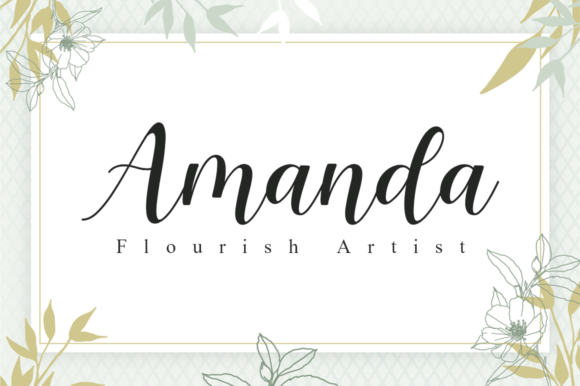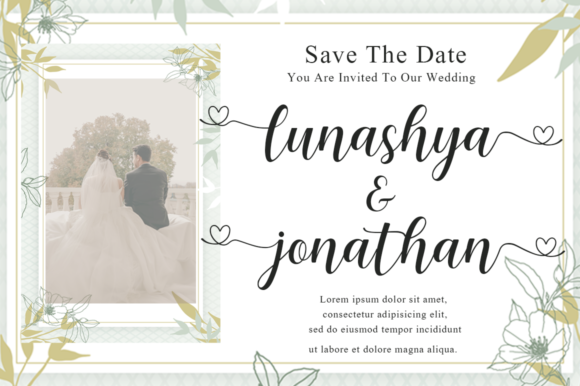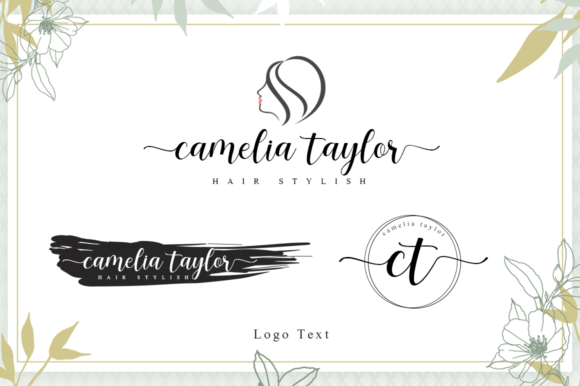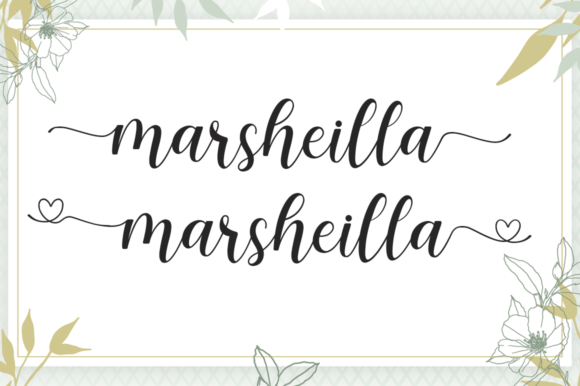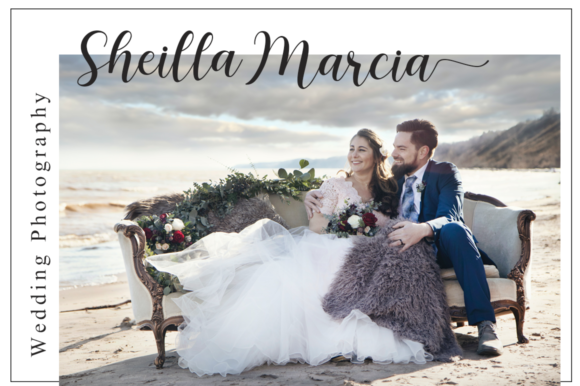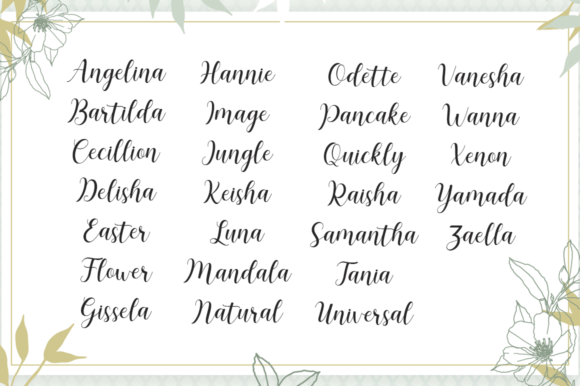
Introduction to Marsheilla Font
Have you ever stared at a blank canvas, a blank page, or a blank screen, waiting for the perfect design to come to life? For many creatives, that’s where the magic begins. For me, it’s when I stumble upon a font that speaks to my soul, and Marsheilla Font is one of those fonts that makes my heart skip a beat. With its gorgeous script and friendly feel, it’s the perfect addition to any design project.
As a valuable resource for designers, Marsheilla Font offers a wealth of creative possibilities. Whether you’re working on a high-quality design for a client or a personal project, this font is sure to elevate your work to the next level. And the best part? It’s available for free download, complete with transparent background and PUA encoded for easy access to its many special features.
From Instagram-worthy graphics to calligraphy scripts for DIY projects, Marsheilla Font is the ultimate design companion for any creative project.
Key Features of Marsheilla Font
- High-quality, professional design suitable for various creative projects, including logos, branding materials, and digital art.
- Features a transparent background, allowing for seamless integration into various design elements and backgrounds.
- Designed with a focus on precision and clarity, making it ideal for use in digital art, graphics, and other creative projects.
- Supports various resolutions and sizes, from small icons to large-scale designs, ensuring versatility and flexibility.
- Perfect for designers seeking a unique and high-quality design resource for their next creative project.
Honest Review: Marsheilla Font
I recently stumbled upon the Marsheilla Font and I must say it’s been a great addition to my design resource library. ✨ One of the things I love about this font is its unique, handwritten feel that adds a touch of elegance to any creative project. The font is also available for free download, which is a major plus for designers like me who are always on the lookout for high-quality resources without breaking the bank.
Upon closer inspection, I noticed that the font has a transparent background, which makes it incredibly versatile. I’ve used it for everything from logo design to social media graphics, and it always looks great. The font’s subtle flair and whimsical feel make it perfect for adding a touch of personality to your designs.
Here are some of the key features that I think work well:
- Unique, handwritten feel
- May not be suitable for formal or corporate designs
- Not as extensive a font family as some other options
- May not be available in as many languages
Overall, I’m really impressed with the Marsheilla Font. It’s a high-quality resource that’s perfect for designers who want to add a touch of personality to their work. ⚠️ Just be aware of the limitations mentioned above, and you’ll be good to go!
Yes, the Marsheilla Font is a high-quality design resource that is perfect for a creative project. It features a unique and stylish design that is sure to add a touch of elegance to your work. With its high level of detail and crisp lines, it is ideal for use in a variety of design applications, from logos and branding to packaging and advertising.